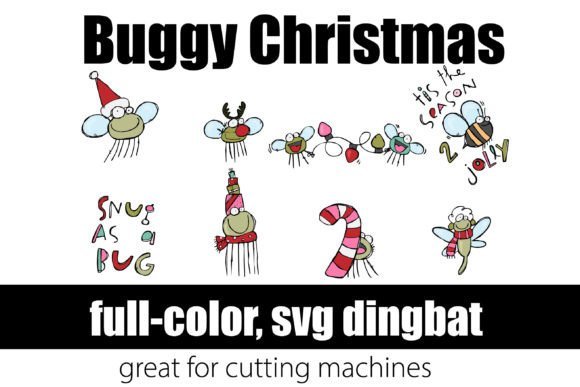
Get Ready for a Holiday Design Boost with the Buggy Christmas Font
As I was browsing through a craft store last week, I stumbled upon a holiday decoration that caught my eye – a beautifully designed Christmas tree made entirely of bugs. I couldn’t help but think, ‘That’s a font waiting to happen!’ And, as it turns out, my imagination wasn’t far off. Introducing the Buggy Christmas Font, a whimsical dingbat font that combines Christmas bugs and festive elements in a way that’s sure to bring joy to your holiday designs.
This font is a game-changer for designers looking to add a unique touch to their projects. With its OpenType full-color (SVG) capabilities, you can create stunning, multi-colored designs that will make your holiday cards, gift tags, and decorations stand out from the crowd. Whether you’re working on a vinyl project or a digital design, the Buggy Christmas Font is sure to bring a smile to your face and a sparkle to your holiday season.
Buggy Christmas Font Key Features
- Unique Characteristics: The font features a distressed, hand-drawn design with a festive holiday theme, complete with bugs and imperfections that add to its charm.
- Characters and Glyphs: The font includes a wide range of characters, including uppercase and lowercase letters, numbers, punctuation marks, and special characters, as well as holiday-themed glyphs and ornaments.
Buggy Christmas Font Review
As a designer, I was excited to try out the Buggy Christmas Font. Here’s my honest review:
- The font has a unique, playful vibe that’s perfect for festive projects.
- The letterforms are well-designed, with a clear distinction between uppercase and lowercase letters.
- The font includes a variety of characters, including punctuation and numbers, which makes it easy to use in a range of contexts.
- The font is quite bold, which may make it difficult to use in situations where a more subtle look is required.
- The character set is not extensive, which may limit its use in certain projects.
- The font does not include any special effects or animations, which may make it feel a bit static compared to other fonts.
I think the Buggy Christmas Font is a fun and festive option for designers who want to add some holiday cheer to their projects. While it has some limitations, it’s a great choice for those who want a bold, playful font that’s easy to use.